Atipo
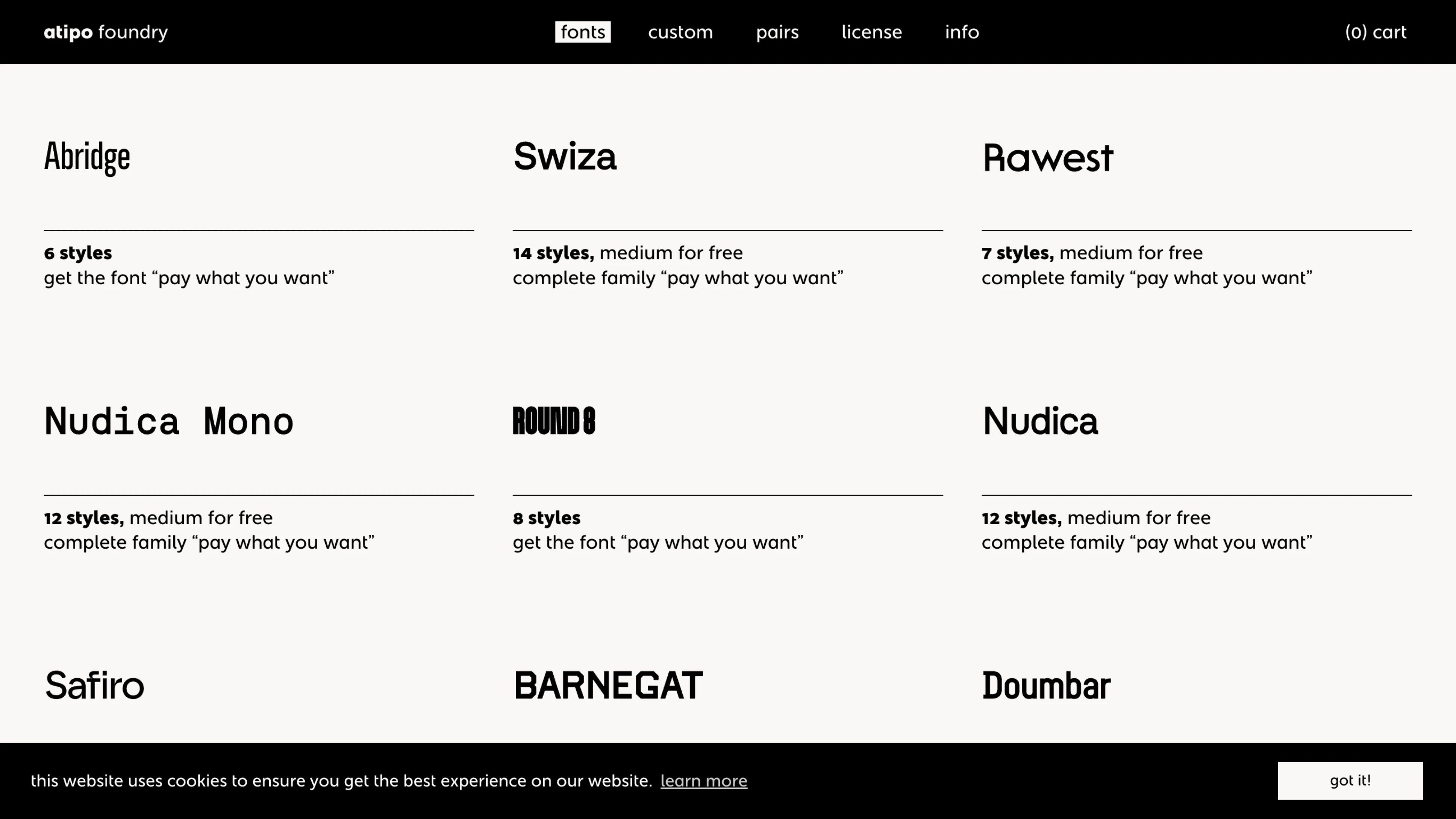
Spain
2009
Atipo Foundry is an independent digital typeface foundry and graphic design studio based in Gijón, Spain. Founded by Raúl García del Pomar and Ismael González, Atipo specializes in creating versatile and contemporary typefaces, such as Geomanist and Basier. They are known for their "pay what you want" pricing model, making quality typography accessible to a broader audience.